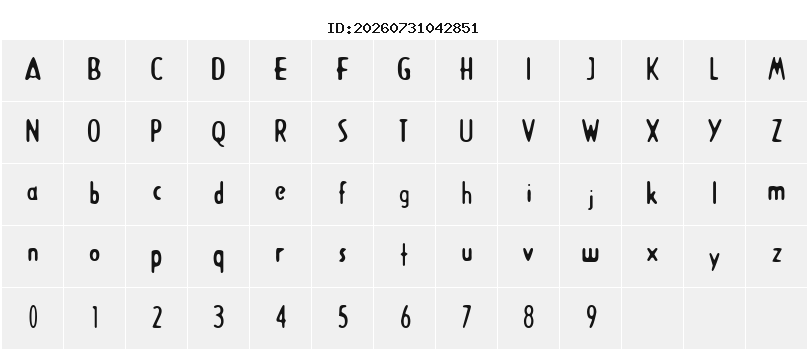
Liquid Nite Preview
• Font Name: Liquid Nite
• Font ID: Liquid Nite
• Full Font Name: Liquid Nite
• Designer: Andrew Hungerford
• Manufacturer: - [ zogoz ] -
• Description: A very smooth font, great for typography and print work. -[zogoz]-
About Liquid Nite.ttf
Liquid Nite.ttf is a modern, elegant sans-serif font designed for ultimate readability and visual harmony. Perfect for branding, headlines, web design, and print materials.